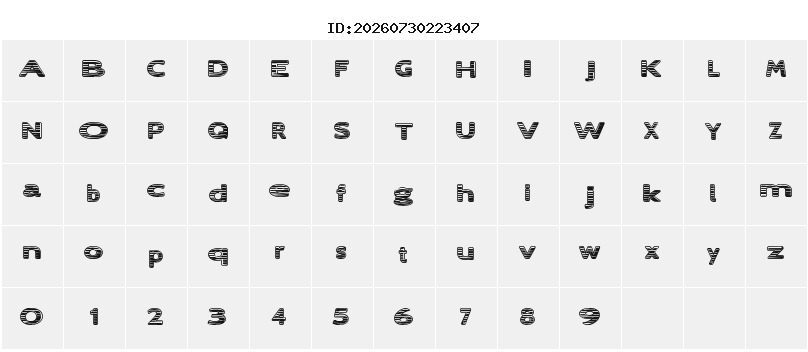
LostRay Preview
• Font Name: LostRay
• Font ID: LostRay:Version 1.00
• Full Font Name: LostRay
• Version: Version 1.00 March 21, 2014, initial release
• PostScript Name: LostRay
• Character Count: 72
• Designer: Xerographer Fonts Max Infeld
• Manufacturer: Xerographer Fonts
• Description: Made at Xerographer Studios in Chico,CA
About LostRay.ttf
LostRay.ttf is a modern, elegant sans-serif font designed for ultimate readability and visual harmony. Perfect for branding, headlines, web design, and print materials.